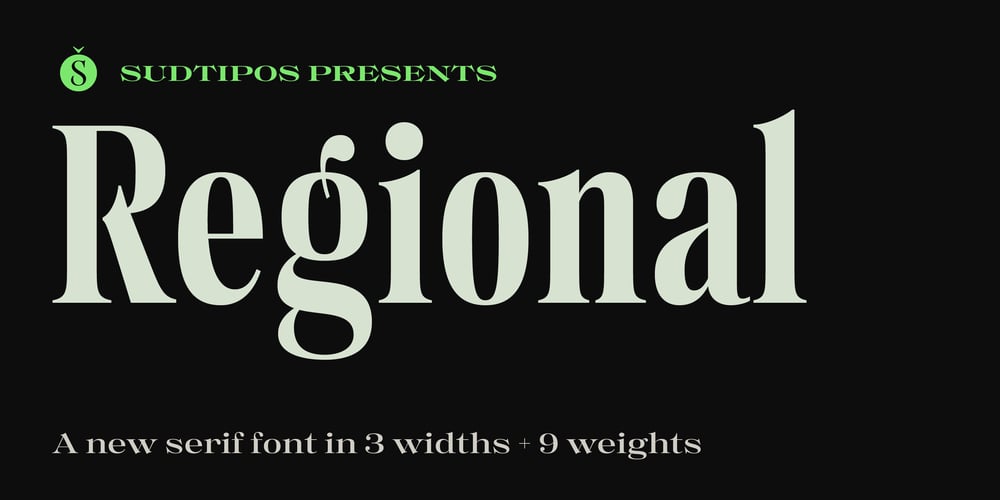
Regional Font Family was designed by Alejandro Paul and published by Sudtipos. Regional contains 28 styles and family package options. Sudtipos is really proud to announce the release of Regional, a solid workhorse type family of 27 styles inspired by the Old Style Bold models from the late XIX century by different type foundries. The unique diagonal in the “R” has been the key that inspired us to create many of the several alternates included in the set. From a delicate and expressive thin condensed to an exaggerated expanded black, Regional merges the past with the present, making it useful for a wide range of designs. We have imagined Regional to be used in magazines, packaging labels and posters. The addition of a complementary one-file variable format is included when you license the complete set.